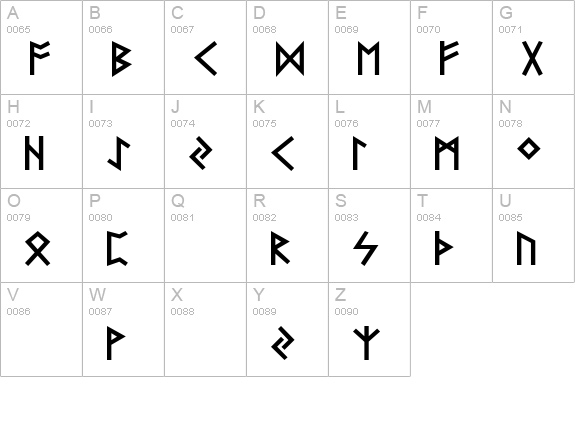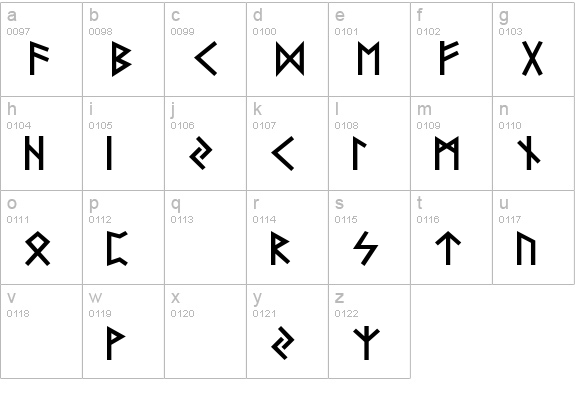
Futhark AOE Font Details
Futhark AOE font is a stunning display typeface that exudes elegance and sophistication. Its intricate details and unique design make it perfect for adding a touch of luxury to any project. With its sharp, angular shapes and intricate curves, Futhark AOE font commands attention and leaves a lasting impression. What sets Futhark AOE font apart is its versatility. Whether you're designing a logo, branding materials, or a website, this font will elevate your design to the next level. Its timeless appeal and modern aesthetic make it a popular choice among designers looking to make a statement. Best of all, Futhark AOE font is available for free download at FontsMarket.com. This means you can start using this exquisite font in your projects right away, without having to worry about breaking the bank. Don't miss out on the opportunity to add Futhark AOE font to your font library today and take your designs to new heights.